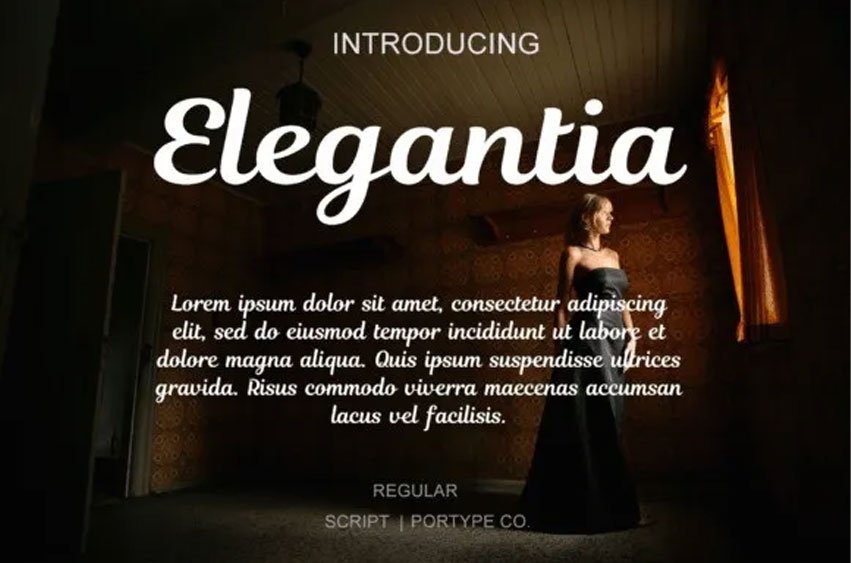
Elegantia Font is a beautifully designed typeface that exudes elegance and sophistication. The letters are gracefully crafted with smooth, flowing lines that convey a sense of refinement and grace. Each character is meticulously detailed, from the delicate curves to the fine serifs, creating a cohesive and visually stunning appearance.
The Elagantia font is perfect for use in elegant designs such as wedding invitations, high-end fashion branding, and luxury product packaging. Its timeless beauty and classic style make it an excellent choice for any project that requires a touch of sophistication.
The font is versatile and legible, making it suitable for both large and small print sizes. The Elagantia font is sure to catch the eye and leave a lasting impression with its stylish and sophisticated appearance.
Elegantia Font Preview